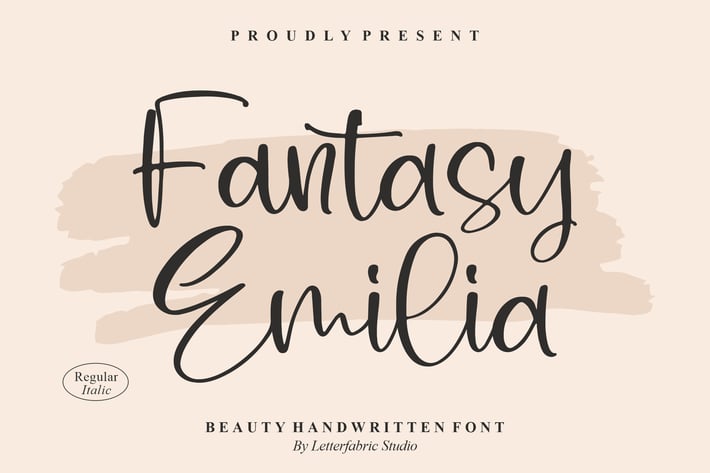
Fantasy Emilia Handwritten Font
Fantasy Emilia is a chic handwritten font that blends natural strokes with modern elegance. Designed to bring warmth and personality, this font is perfect for projects that call for a handcrafted yet stylish touch. With its casual yet graceful form, Fantasy Emilia is versatile for both digital and printed works, from branding to creative invitations.
+ Handwritten style with smooth and natural strokes
+ Includes both Regular & Italic styles
+ Branding & logo design
+ Wedding stationery & invitations
+ Social media graphics & quotes
+ Packaging design & labels
+ Personal creative projects
Bring a touch of effortless charm to your designs with Fantasy Emilia – where handwriting meets modern style.